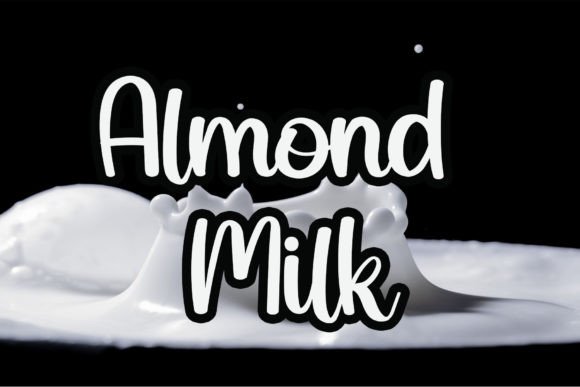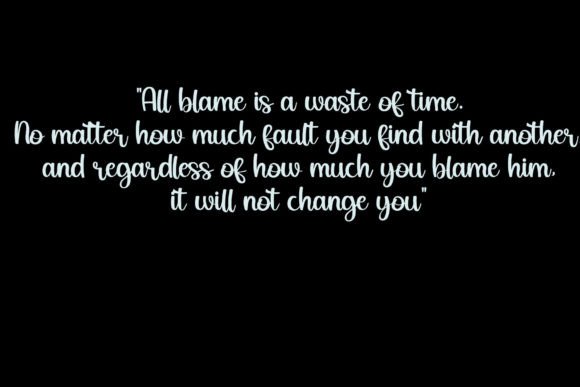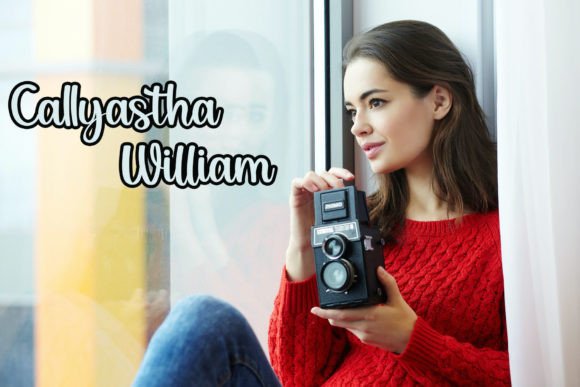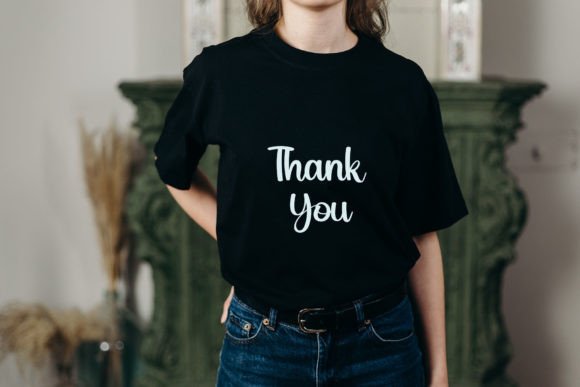
Introducing Anything Font: Elevate Your Designs with Timeless Elegance
In the world of typography, a font can make or break a design project. For designers and crafters seeking to add a touch of sophistication and class to their work, look no further than the Anything Font. This trendy handwritten font boasts a contemporary atmosphere and impeccable form, drawing inspiration from timeless classic calligraphy.
The Inspiration Behind Anything Font
The Anything Font is a masterful blend of traditional calligraphy and modern design sensibilities. Its creators sought to craft a font that would evoke the elegance and refinement of classic calligraphy, while still feeling fresh and contemporary. The result is a font that is both nostalgic and forward-thinking, perfect for designers looking to add a touch of sophistication to their work.
Key Features of Anything Font
• Trendy Handwritten Style: The Anything Font features a beautiful, handwritten style that adds a personal touch to any design project.
• Contemporary Atmosphere: With its clean lines and modern aesthetic, this font is perfect for designers looking to create work that feels fresh and up-to-date.
• Impeccable Form: The Anything Font is meticulously crafted, with attention to detail and a focus on creating a beautiful, cohesive look.
• Inspired by Timeless Classic Calligraphy: This font draws on the rich tradition of classic calligraphy, adding a touch of elegance and refinement to any design project.
Uses for Anything Font
The Anything Font is incredibly versatile, making it perfect for a wide range of design projects. Here are just a few ideas to get you started:
• Wedding Invitations and Stationery: Add a touch of elegance and sophistication to your wedding invitations, stationery, and other paper goods with the Anything Font.
• Branding and Packaging: Use the Anything Font to create beautiful, eye-catching branding and packaging that sets your product apart from the competition.
• Signage and Displays: This font is perfect for creating stunning signage and displays that grab attention and make a lasting impression.
• Digital Designs: The Anything Font can also be used in digital designs, such as social media graphics, website headers, and more.
Why Choose Anything Font?
With so many fonts to choose from, why select the Anything Font for your design projects? Here are just a few reasons:
• Unique and Versatile: The Anything Font is a unique and versatile font that can be used in a wide range of design projects.
• Elegant and Refined: This font adds a touch of elegance and refinement to any design project, making it perfect for designers looking to create sophisticated work.
• Easy to Read and Understand: The Anything Font is clear, legible, and easy to read, making it perfect for use in body text and other applications where readability is key.
In conclusion, the Anything Font is a beautiful, trendy handwritten font that adds a touch of elegance and class to any design project. With its contemporary atmosphere, impeccable form, and inspiration from timeless classic calligraphy, this font is perfect for designers and crafters looking to create sophisticated, eye-catching work. Whether you’re designing wedding invitations, branding and packaging, or digital designs, the Anything Font is a versatile and refined choice that’s sure to impress.